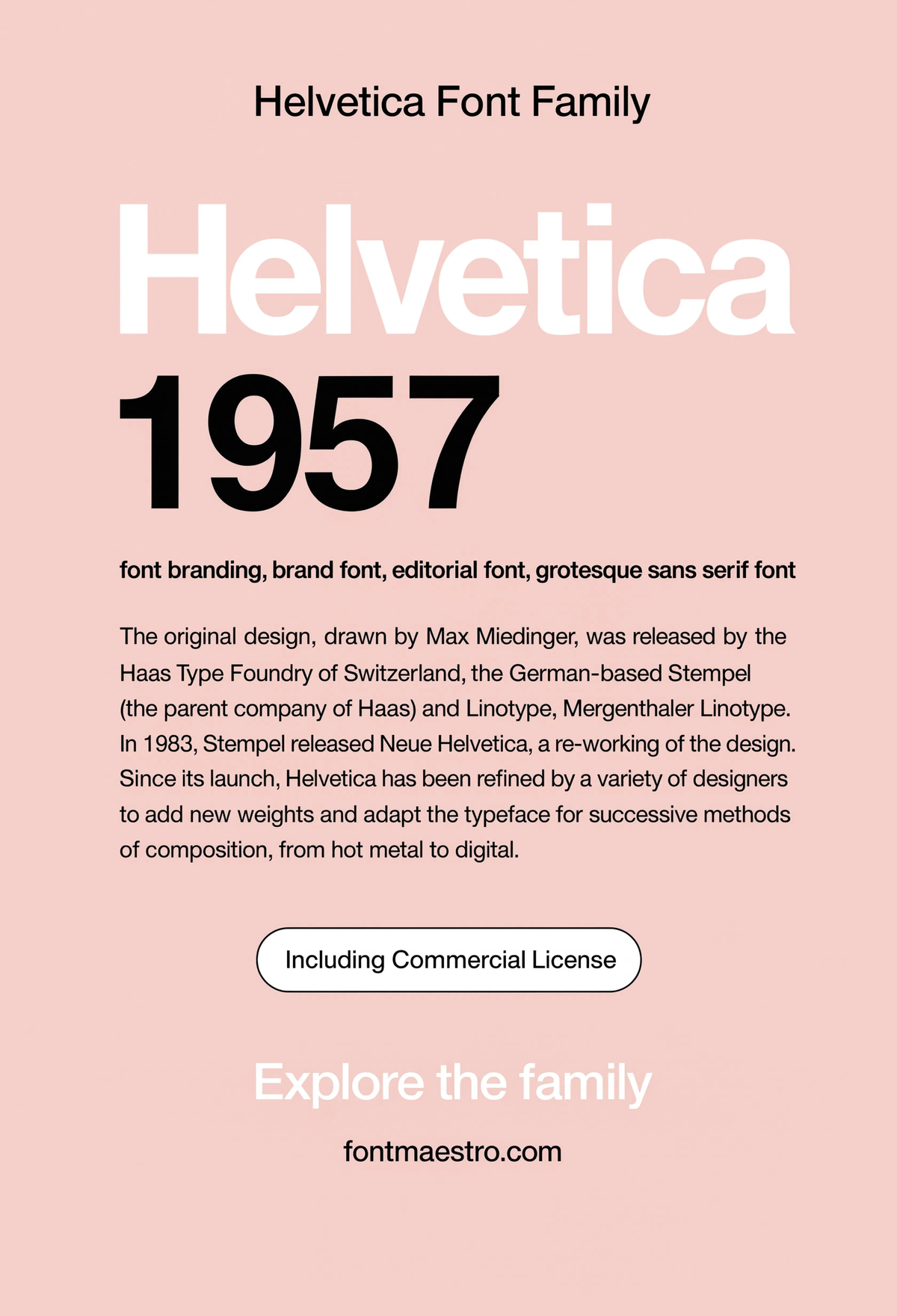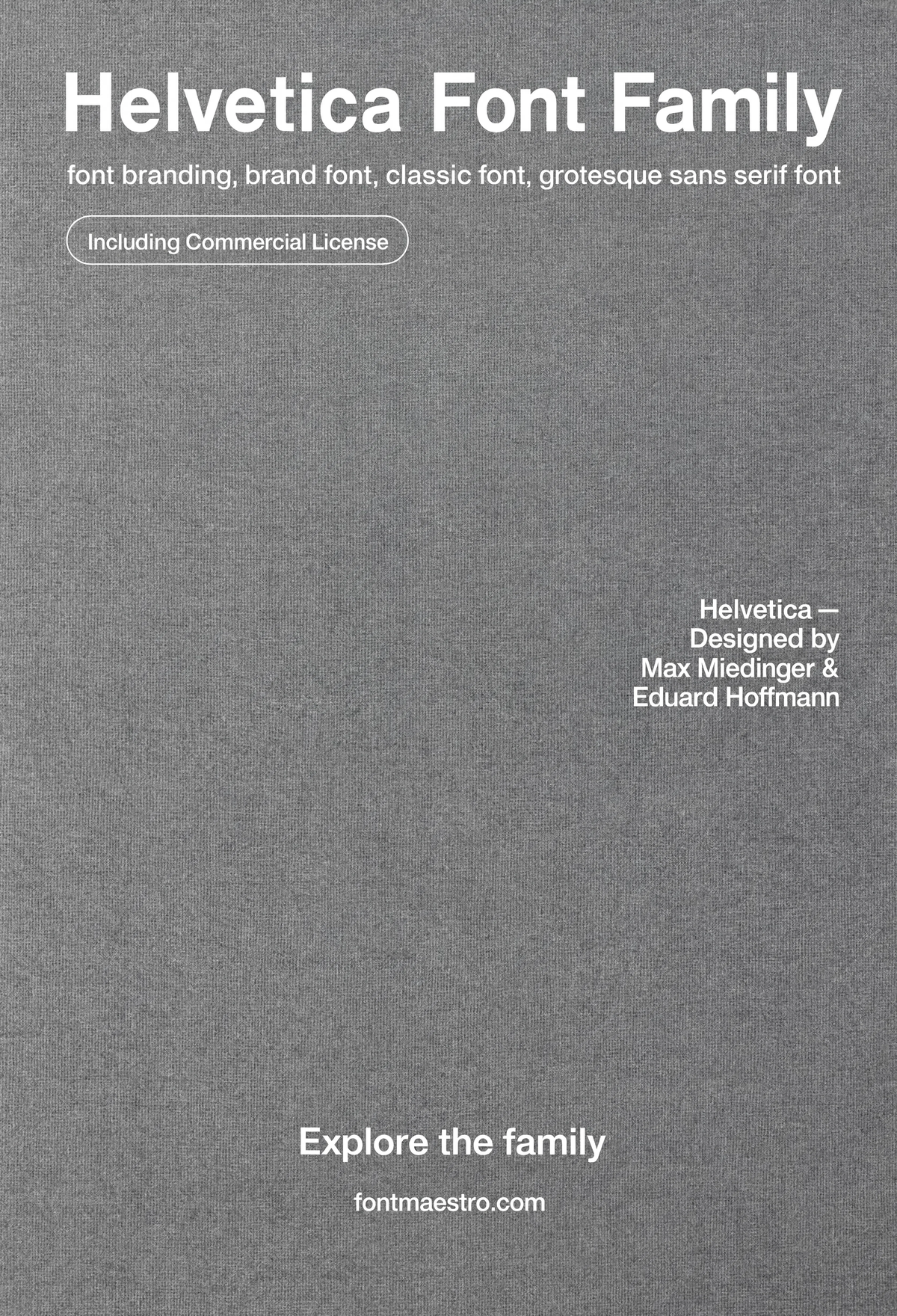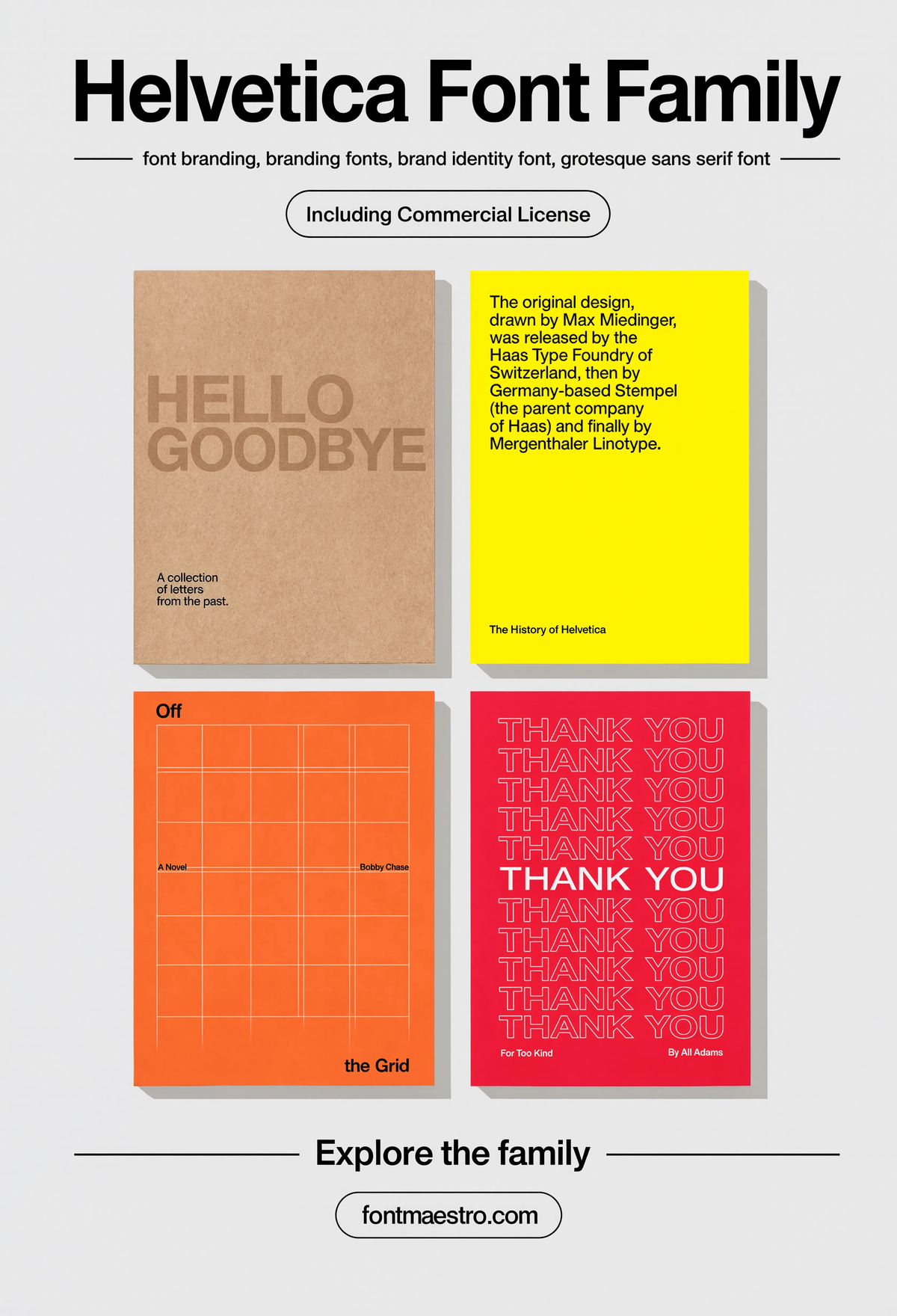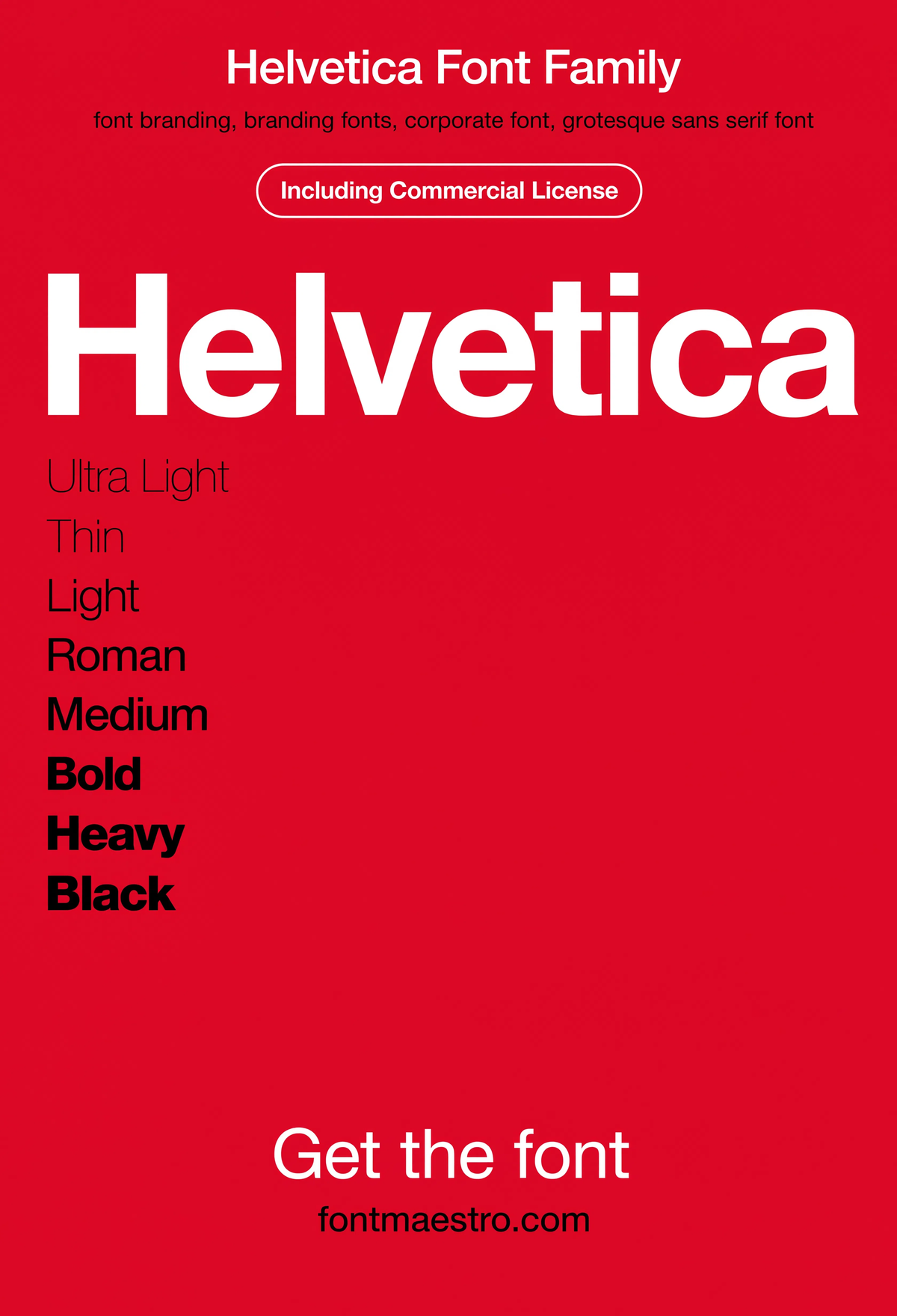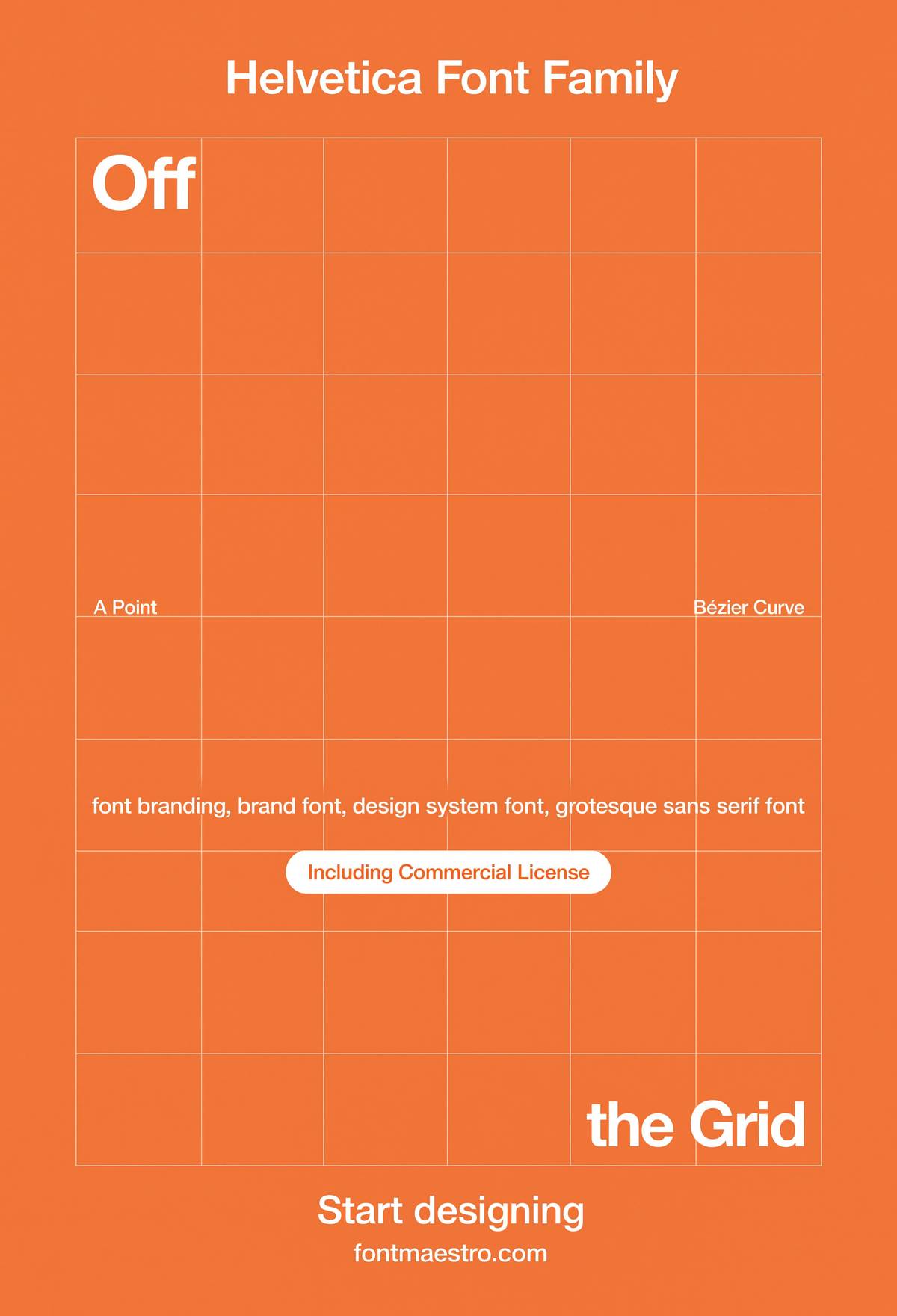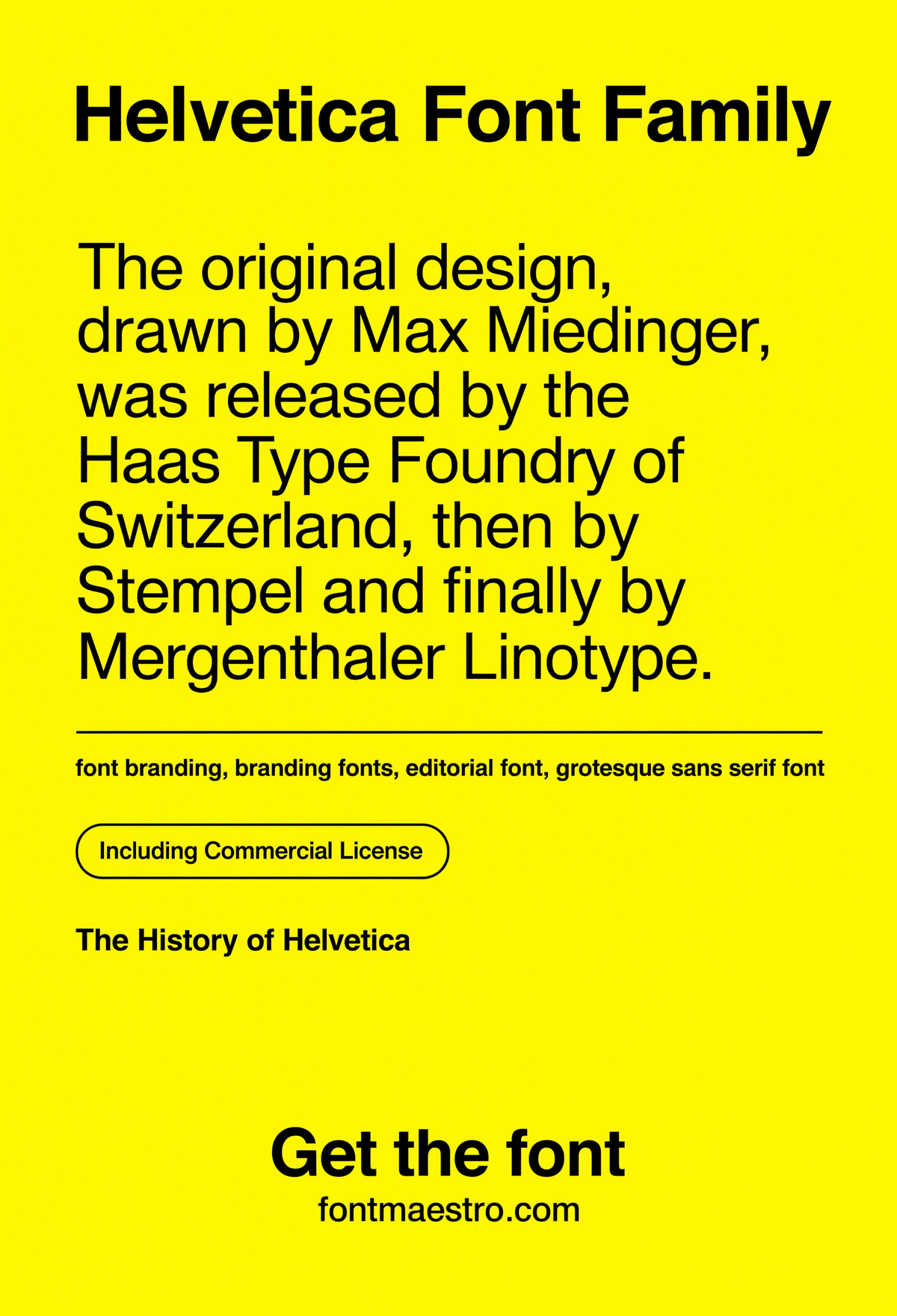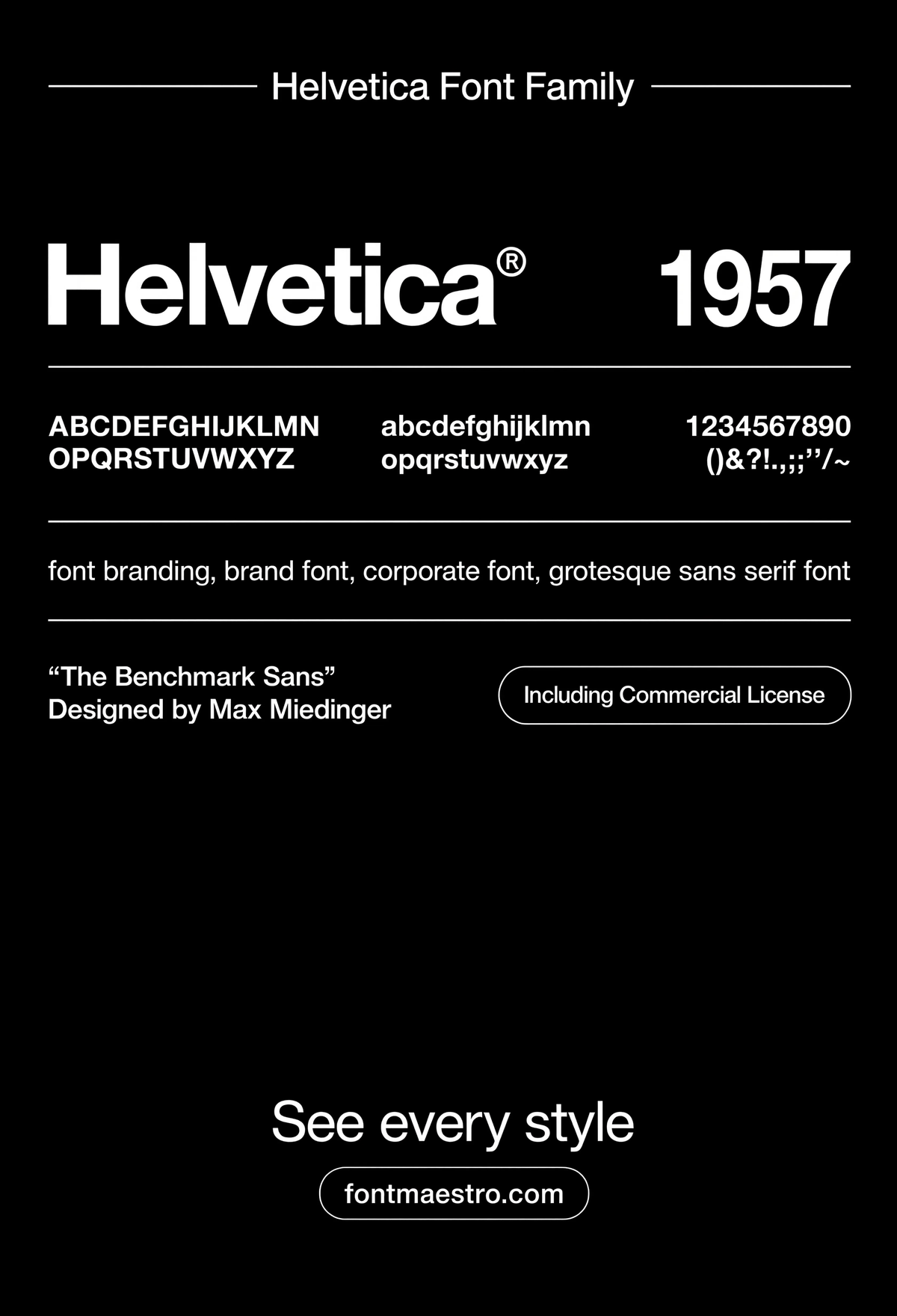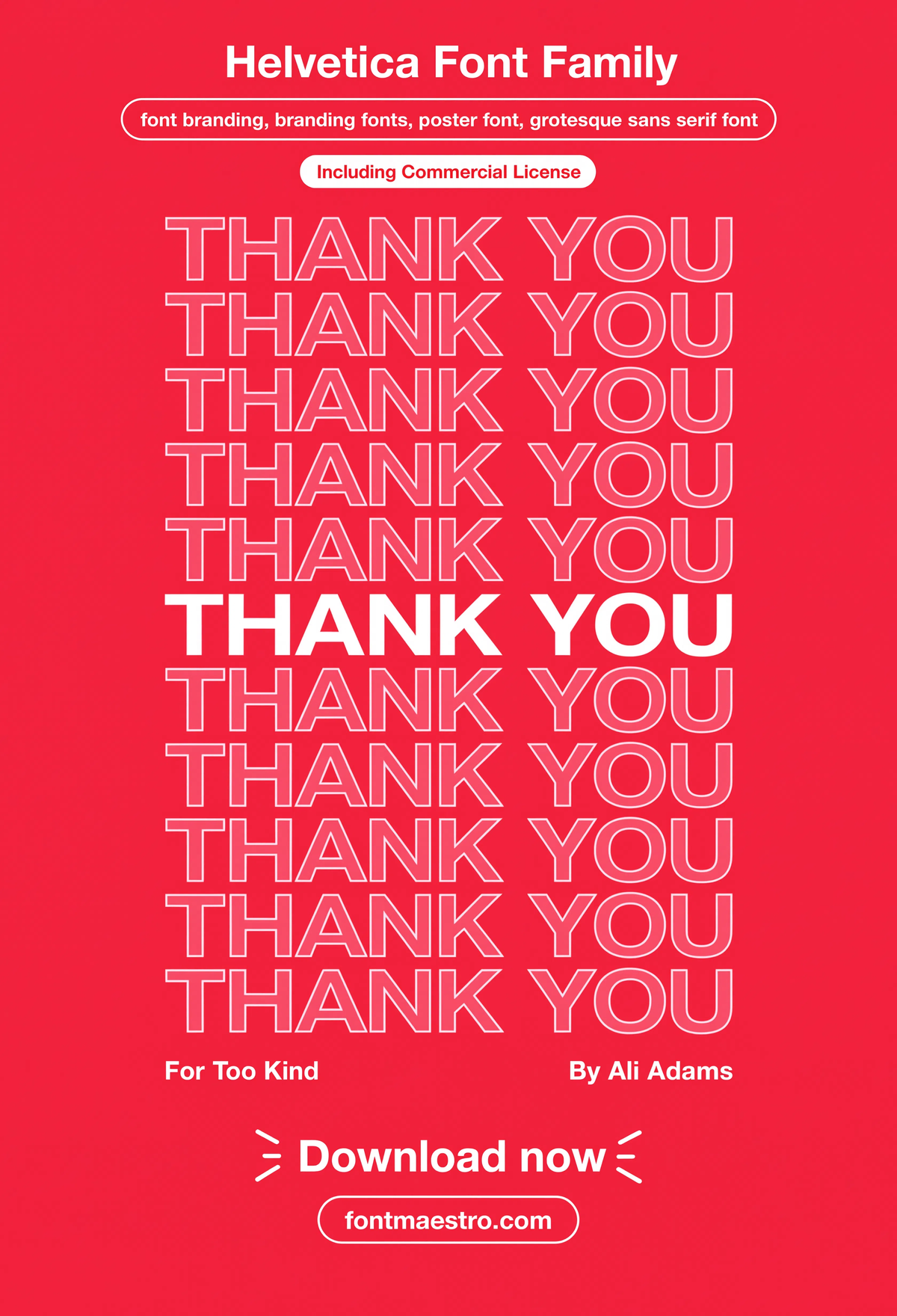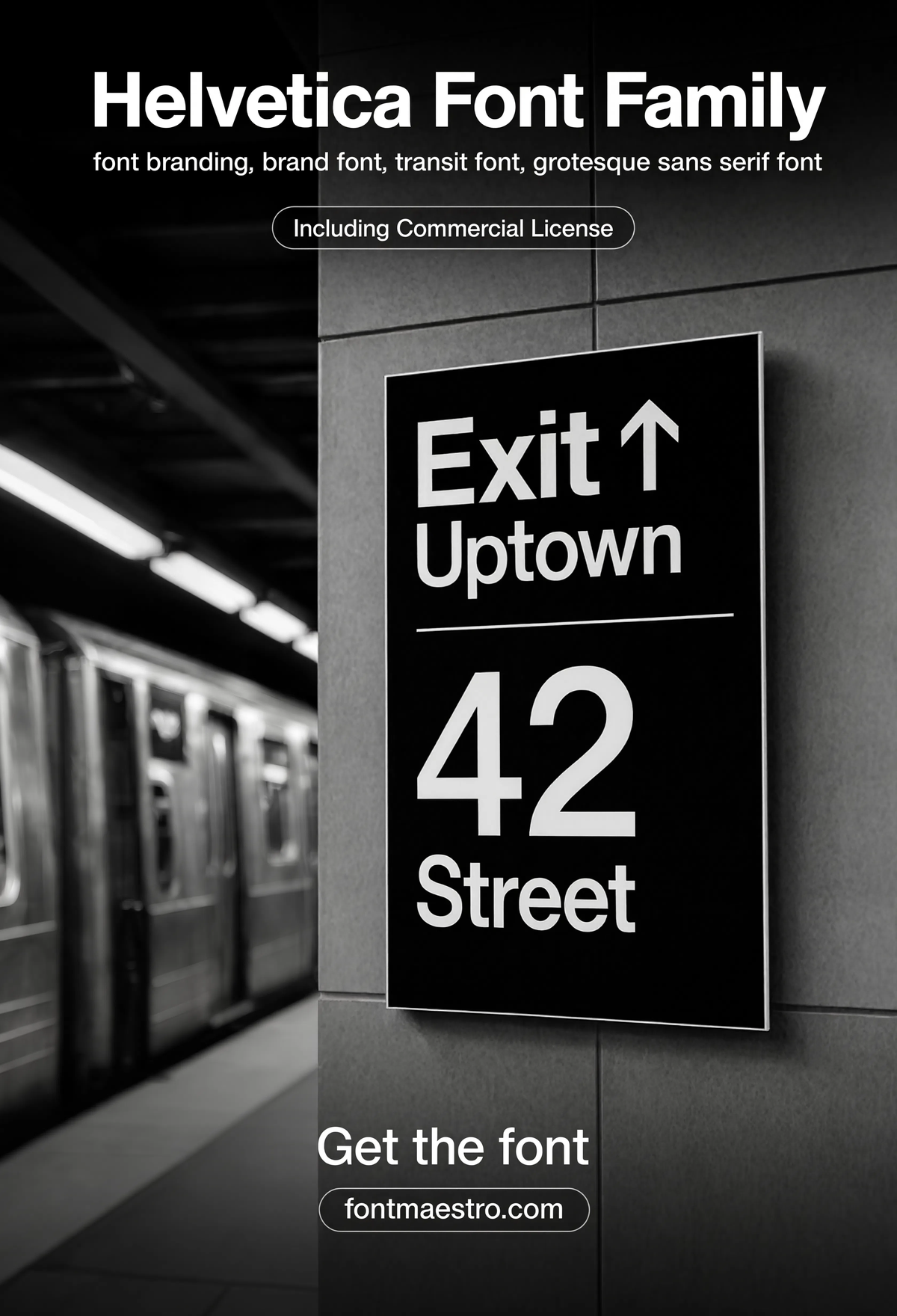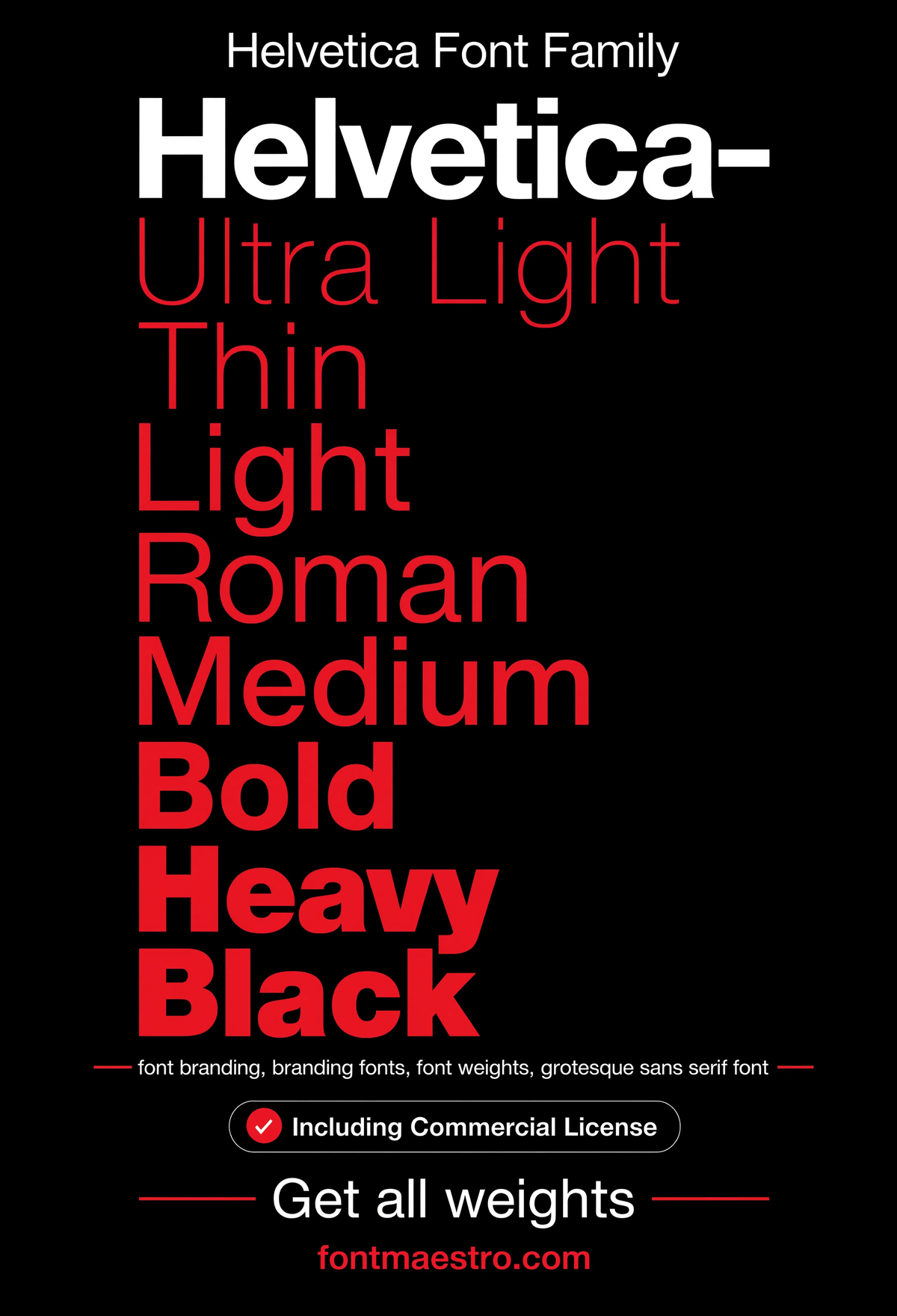
Best Font for Branding — Neutral Sans-Serif for Logos, Signage & Identity Systems
Font branding decisions rarely fail because the typeface looks bad in isolation — they fail because nobody checked whether it holds up across every touchpoint a brand actually needs: a logo lockup, a signage system, a business card, and a website header, all at once.
Searches for “branding fonts,” “font branding guidelines,” and “good branding fonts” usually come from the same moment — a founder or designer staring at a logo file, unsure if the typeface underneath it can carry the rest of the identity system or if it’s about to become the weak link.
Quick answer: Helvetica remains one of the most-used branding typefaces because its neutral, letterform-consistent design carries a brand identity across every surface — signage, packaging, editorial, digital — without fighting for attention. Before locking in any font for branding, check its weight range and how it behaves in a wordmark at small sizes; that’s where most branding fonts quietly fall apart.
Why does font branding fail even when the logo looks fine on its own?
A logo file is a single frozen moment. Brand identity is not. The same typeface has to work in a sixteen-point footer link, a three-story building sign, and a black-and-white fax cover sheet — and most typefaces were never designed with all three in mind.
What separates a working branding typeface from a logo-only font:
• Neutral letterforms — a brand typeface shouldn’t have a strong “personality” of its own; the brand’s voice should come from color, imagery, and copy, not from quirky letter shapes competing for attention.
• A genuine weight system — Light for body copy, Regular for UI text, Bold for headlines, all sharing the same skeleton so nothing looks like a mismatched substitute.
• Legibility at extremes — tiny footer text and oversized signage both need to read clearly from the same source file.
Helvetica’s neo-grotesque structure was built around exactly this kind of neutrality — the letterforms recede so the message in front of them can lead.
What does a font branding system actually look like in practice?
“Font branding guidelines” searches usually want to see a real system, not a single word set in one weight. Here’s how the same neutral sans carries across a full identity build.
Helvetica — Brand Guidelines Board
A full guidelines board — logo clearspace, type scale, and usage rules laid out together. This is the reference sheet a font branding project is actually built from.
Helvetica — Brand Identity Grid
The full family mapped onto a grid — proof that a neutral sans still needs structure behind it. This is what a real identity system looks like before the logo gets applied to anything.
Helvetica — Branding Wordmark
A wordmark lockup, set clean and tight — the exact use case most “branding fonts” searches are actually solving for. Neutral letterforms let the name itself do the branding work.
What makes a branding font family’s weight range actually usable?
“Branding font family” and “branding font combinations” searches are really asking one question: does this typeface give me enough range to build a hierarchy without switching fonts halfway through the system?
Helvetica — Weight Ladder
Every weight stacked in order — the fastest way to see whether a family’s Light-to-Bold range is genuinely usable or just two extremes with nothing in between.
Helvetica — Weight Rows Specimen
Rows of specimen text across weights side by side — useful for checking that Regular and Bold don’t clash in tone when placed in the same document.
Helvetica — Specimen Sheet
A full type specimen — figures, punctuation, and alternate characters together. This is the detail sheet worth checking before committing a family to a long-term brand system.
• Test any branding typeface at both signage scale and small footer-text scale before committing.
• Distinctiveness in a brand usually comes from color and voice — not from unusual letterforms fighting for attention.